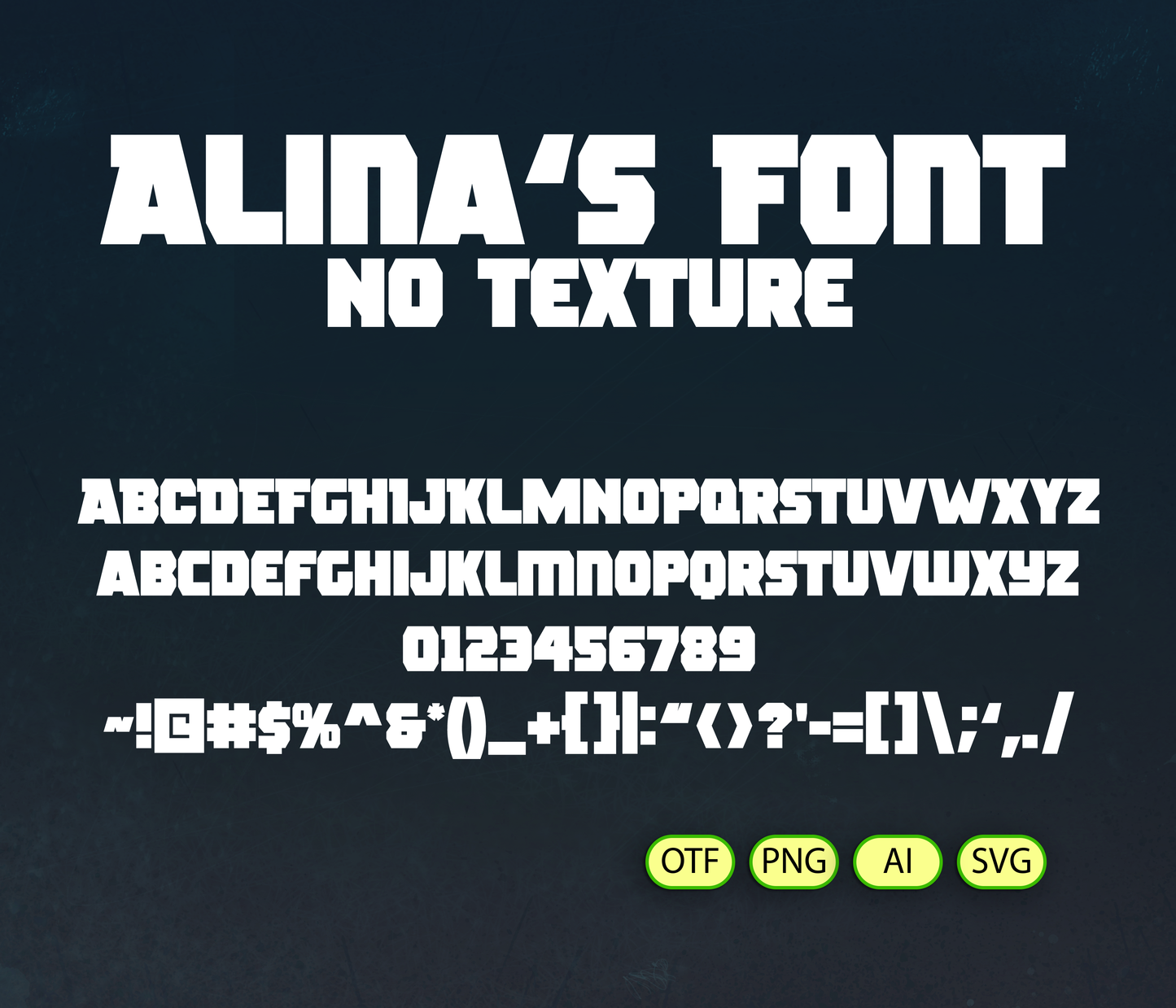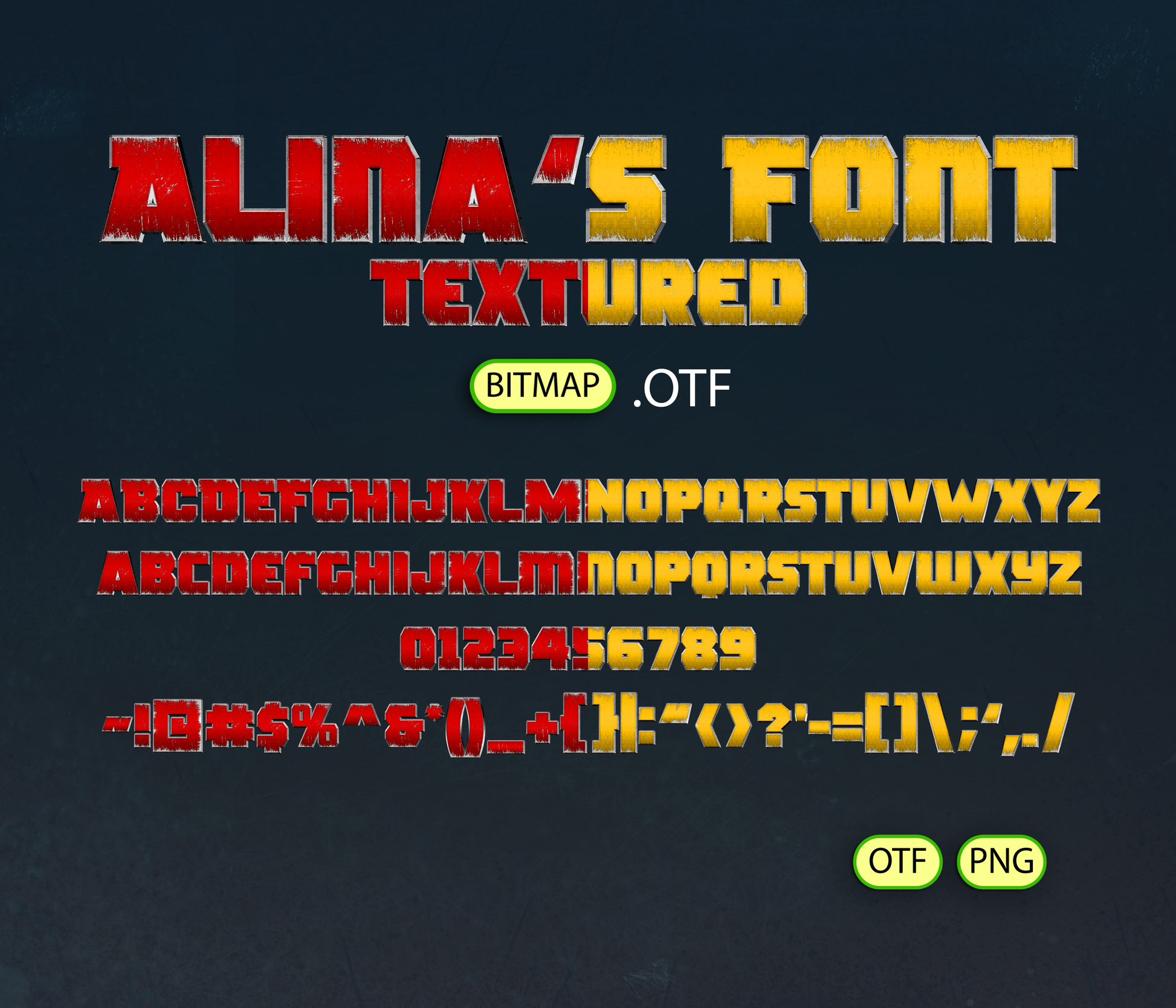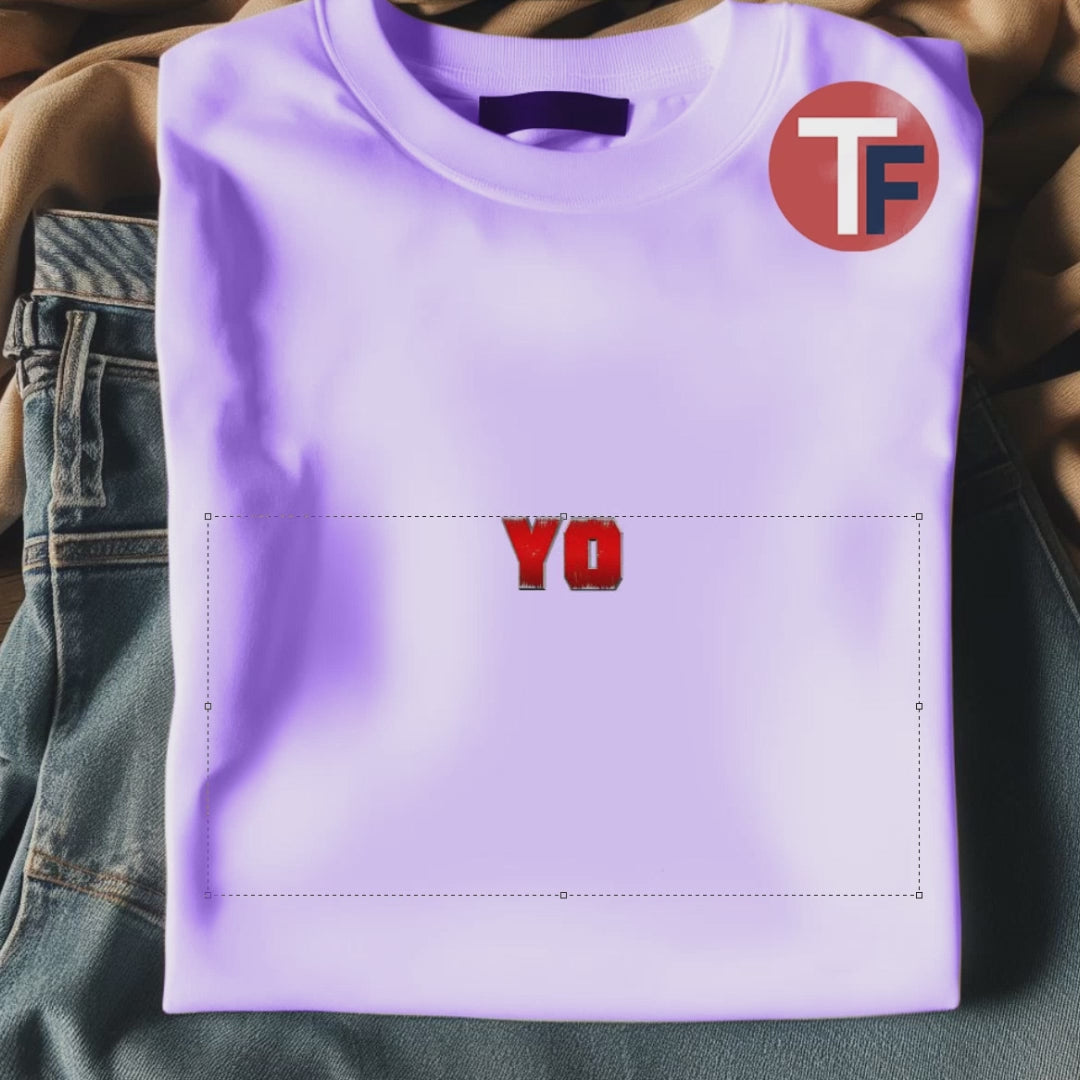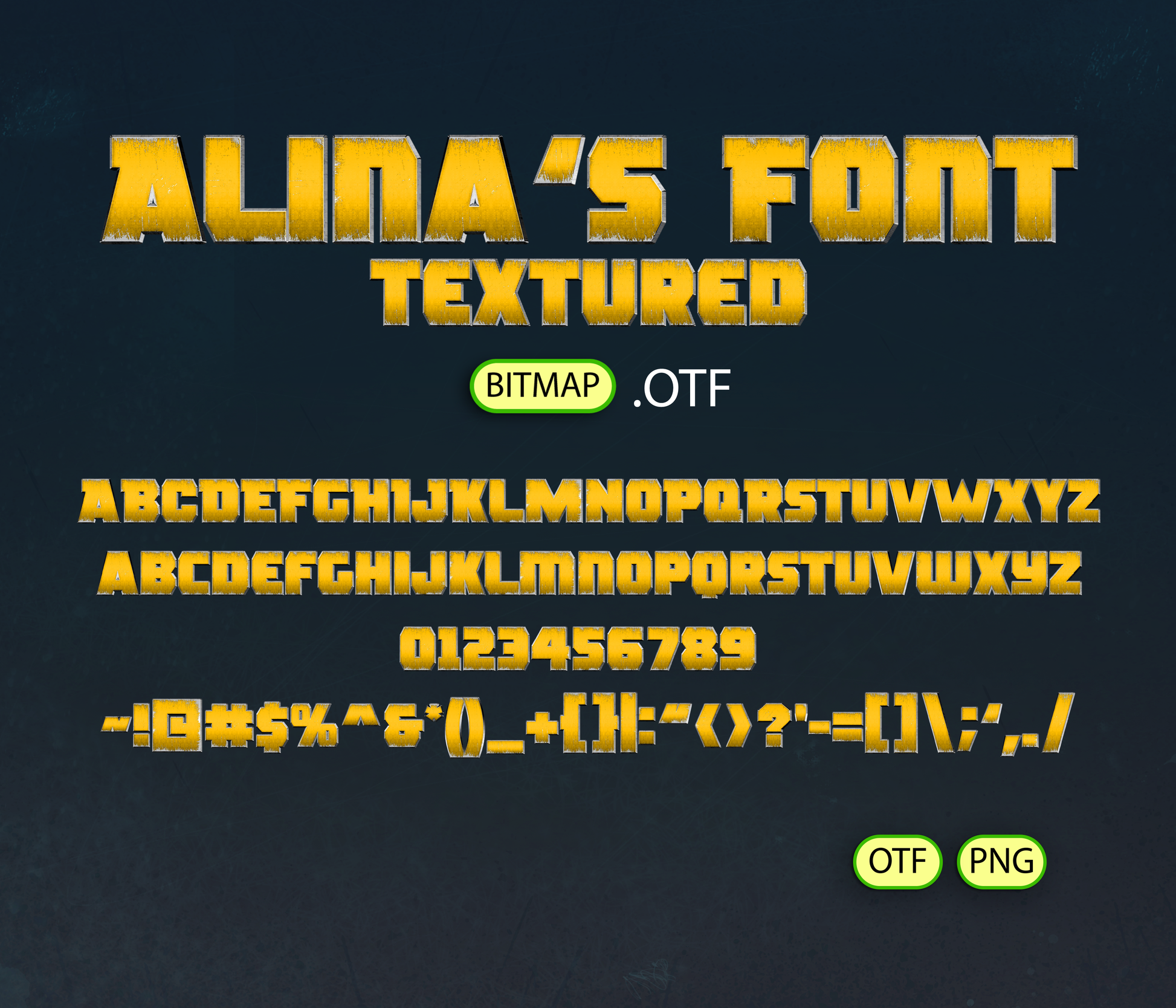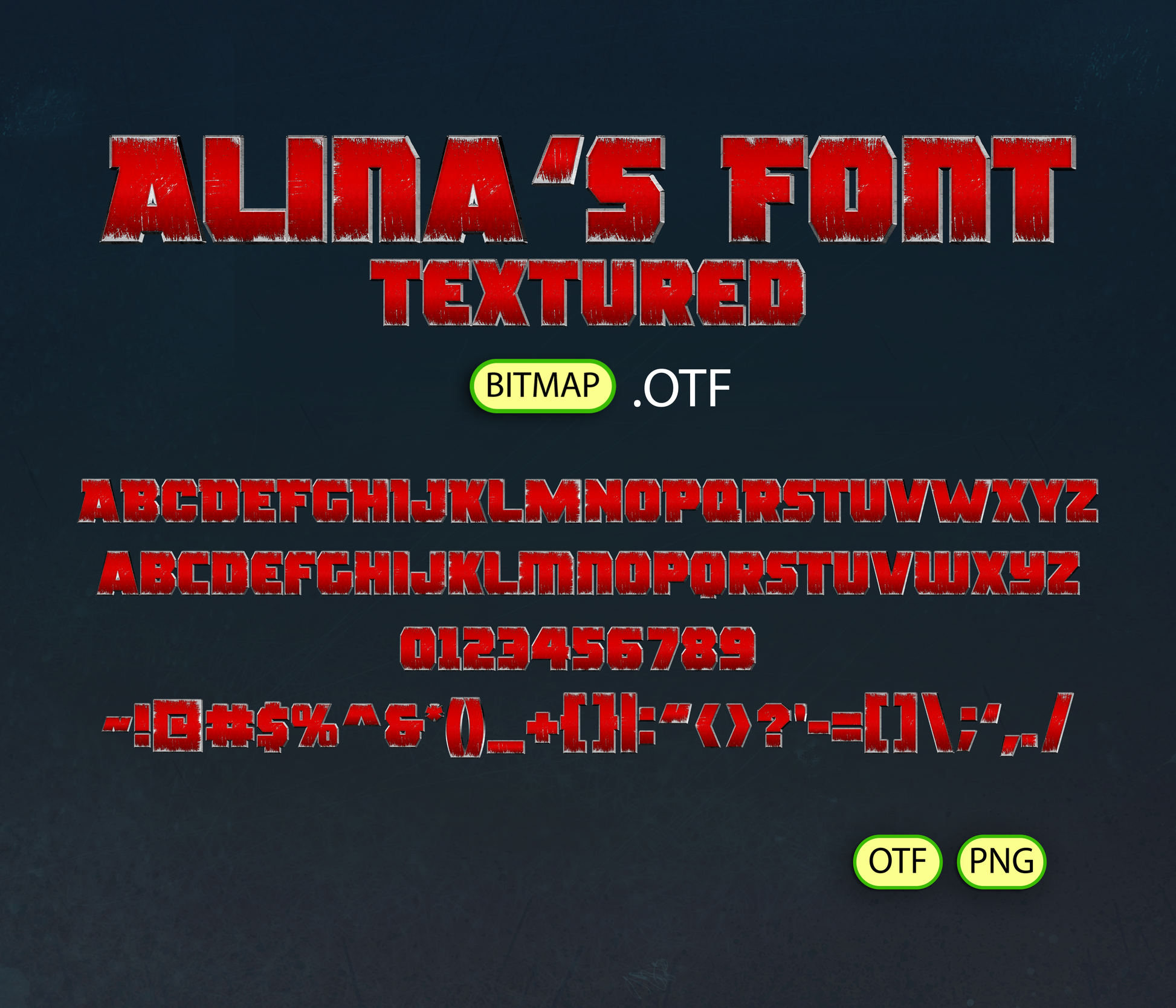
Clash with Rival Heroes Font
Dive into the chaotic world of Rival Heroes with our specially designed font, capturing the essence of an iconic rivalry. Perfect for fans, comic creators, event organizers, and designers, this font brings the dynamic, action-packed spirit of two legendary heroes to your projects. Create event invitations, themed merchandise, or digital content with the high-stakes energy of this epic face-off.
Our Rival Heroes font features bold, sharp lines and rugged characters reflecting the intense nature of both heroes. Ideal for:
- Event Promotions: Striking invites, posters, banners for conventions, movie nights, themed parties.
- Merchandise Design: T-shirts, posters, accessories capturing the essence of the showdown.
- Digital Media: Enhance websites, blogs, social media with dynamic headers and graphics.
- Comic Book Content: Authentic flair for comic books, graphic novels, fan art.
- Â Personal Projects: Action and humor for scrapbooking, DIY crafts, home decor inspired by the clash.
Our Rival Heroes font includes textured and non-textured variants, ensuring compatibility with all software, including Canva. This feature allows easy incorporation into designs for users of all skill levels.
Many seek an online font generator to mimic the look of the Rival Heroes Font. Steer clear! No generator can match the quality of our font, which comes in two versions: a textured colored font and a simple version, perfect for cutting machines.
Our font pays tribute to the legendary rivalry, empowering your designs with its intense and humorous spirit. Whether crafting promotional materials, designing merchandise, or adding a dynamic touch to personal projects, this font communicates the bold essence of these heroes. Ready to inject superhero action into your creations? This font is your key to exciting, impactful design.
Deadpool vs Wolverine Font